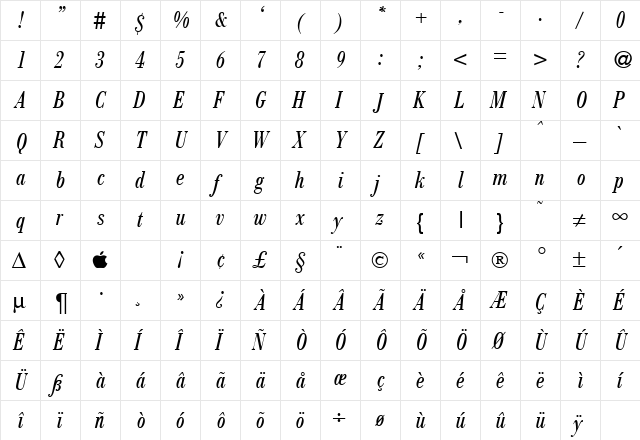
ModernBodoniCond RegularItalic
Design Context for ModernBodoniCond Typeface
ModernBodoniCond is a composed and adaptable typeface that performs quietly and consistently across a wide range of design contexts. Its italic angle brings a sense of urgency and motion to the letterforms. The condensed width makes it efficient for tight spaces without sacrificing legibility.
Pro Tip: Try ModernBodoniCond for annotation and caption copy alongside an upright companion — the contrast in angle creates a dynamic but ordered typographic system.